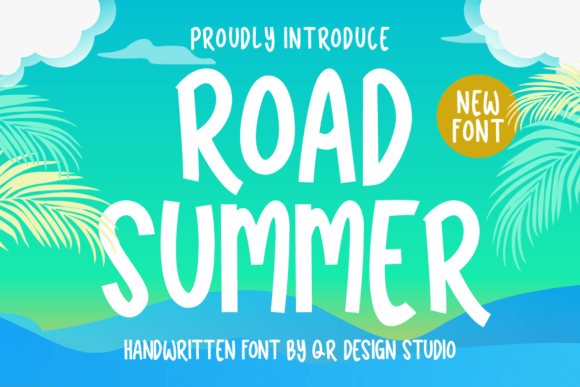
Introducing Road Summer Font: A Splash of Summer Vibes for Your Creative Projects
Welcome to the world of Road Summer Font, a bold and authentic handwritten font that will instantly transport you to the heart of summer. Created by the talented qrdesignstd, this charming script font is a masterpiece that captures the essence of carefree days, sun-kissed beaches, and the irresistible allure of the summer breeze.
With its elegant strokes and lively character, Road Summer Font is the perfect choice for designers, crafters, and creative entrepreneurs who seek to add a touch of summery charm to their projects. Whether you're working on a logo, a greeting card, or a stunning summer-themed invitation, Road Summer Font will elevate your designs with its captivating beauty.
Imagine your designs adorned with the playful curves and expressive strokes of Road Summer Font. Each letter dances on the page, evoking a sense of joy and vibrancy that will leave a lasting impression on your audience. Unleash your creativity and let Road Summer Font take you on a journey of endless summer days, where the sun shines brighter and the laughter is contagious.
The versatility of Road Summer Font knows no bounds. It seamlessly blends with a wide range of design styles, from whimsical and carefree to classic and elegant. Whether you're creating a logo for a beachside boutique, a menu for a tropical-themed restaurant, or a flyer for a summer music festival, Road Summer Font will effortlessly elevate your designs to new heights.
So, if you're ready to infuse your designs with the spirit of summer, look no further than Road Summer Font. Its bold strokes and authentic handwritten style will make your projects shine brighter than the sun. Download Road Summer Font today and embark on a creative journey where summer vibes reign supreme.